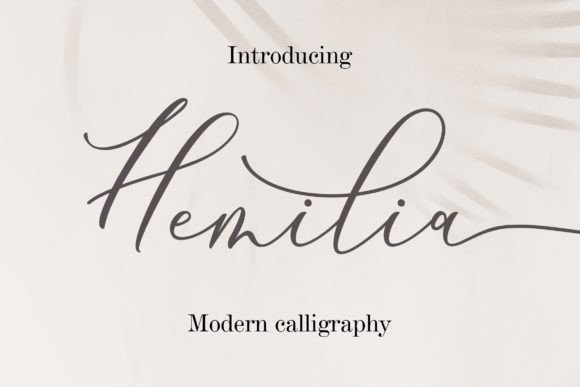
Step into the realm of elegance and sophistication with Hemilia Font, a delicate and graceful script font that will add a touch of timeless beauty to your creative projects. Designed by the talented Amarlettering, Hemilia Font is a modern masterpiece that combines classic typography with a contemporary twist.
Crafted with precision and attention to detail, Hemilia Font features thin letterforms that dance across the page with fluid strokes and subtle curves. Each character exudes a sense of refinement and grace, making it the perfect choice for designs that demand elegance and sophistication. Whether you're creating wedding invitations, branding materials, or editorial designs, Hemilia Font will elevate your work to new heights.
Immerse yourself in the world of Hemilia Font and discover a world of creative possibilities. Its versatility knows no bounds, allowing you to create designs that are both timeless and modern. Hemilia Font is the perfect companion for projects that require a touch of sophistication and charm.
With Hemilia Font, you'll have the power to transform your creative vision into a reality. Its elegant lines and graceful curves will add a touch of enchantment to your designs, leaving a lasting impression on your audience. Embrace the beauty of Hemilia Font and let your creativity soar.